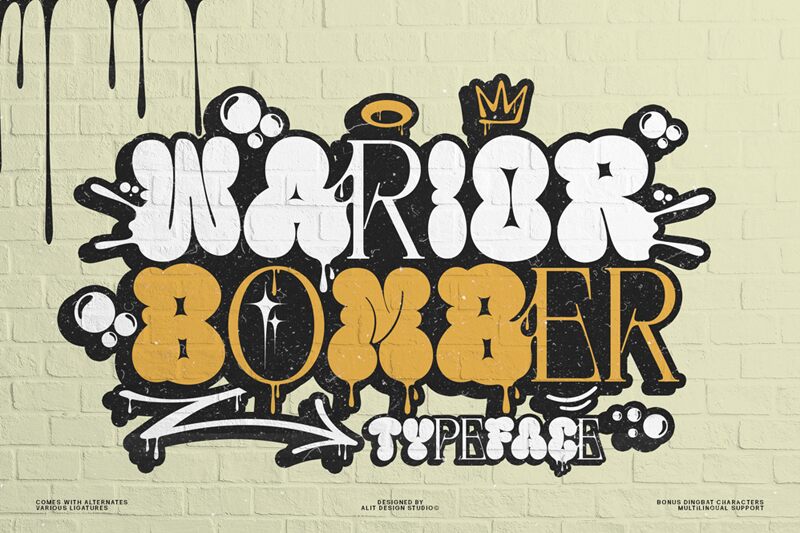
Warior Bomber font by Alit Design is a free graffiti font full of energy with an impact and street art city vibe. The typography carries the youthful and expressive spirit of contemporary urban culture through its dynamic letterforms.
The possibilities for use with this font are wide. Explore the options for graffiti on the wall, and apply it to illustrations, posters, magazines, album or movie covers, cartoons, games, and more. Any visual platform intended for a younger audience and viewers with a free spirit, this font has a great potential to be effective.
"Warior Bomber" is a striking and expressive font that seamlessly merges the edgy aesthetic of bubble graffiti with the sophistication of a unique serif typeface. Its design embodies a fusion of urban street art with a touch of refined elegance, making it a perfect choice for projects that seek a balance between rebellion and sophistication.